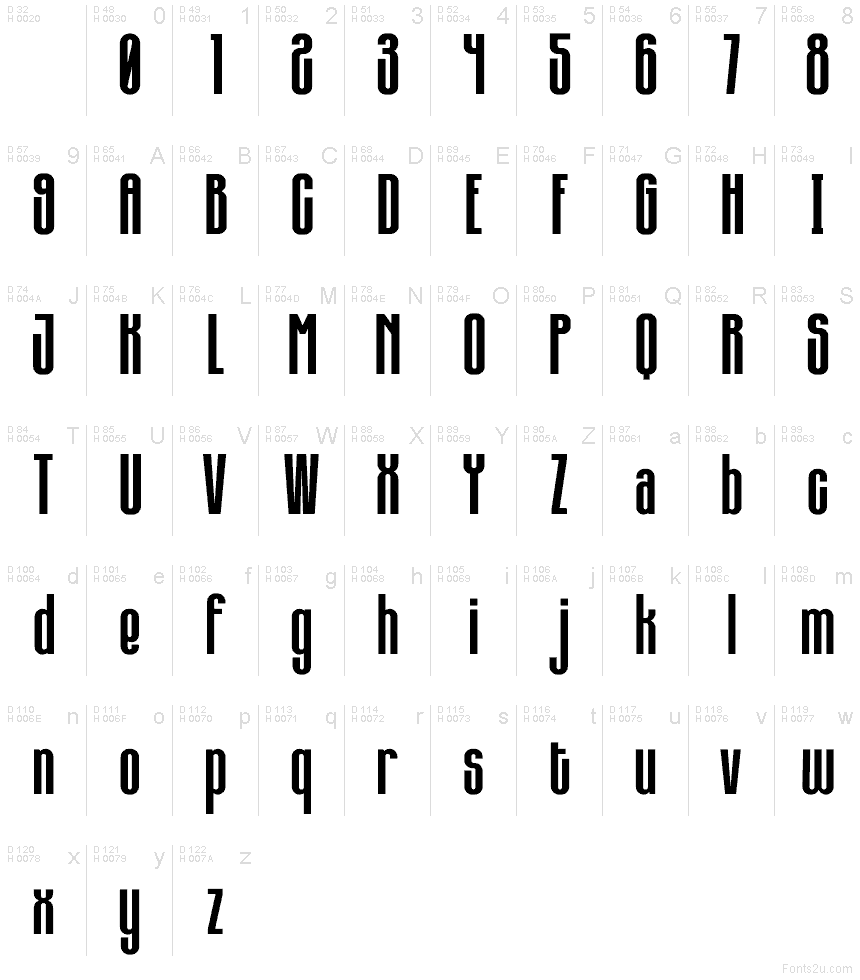
The Goodfather DEMO
The Goodfather font by Toko Laris Djaja is a free sans serif typeface with a condensed width. The composition within such limits makes this typeface authoritative and impactful. With vintage influences, structured design, and powerful presence this font is perfect for multiple projects that could use all such together.